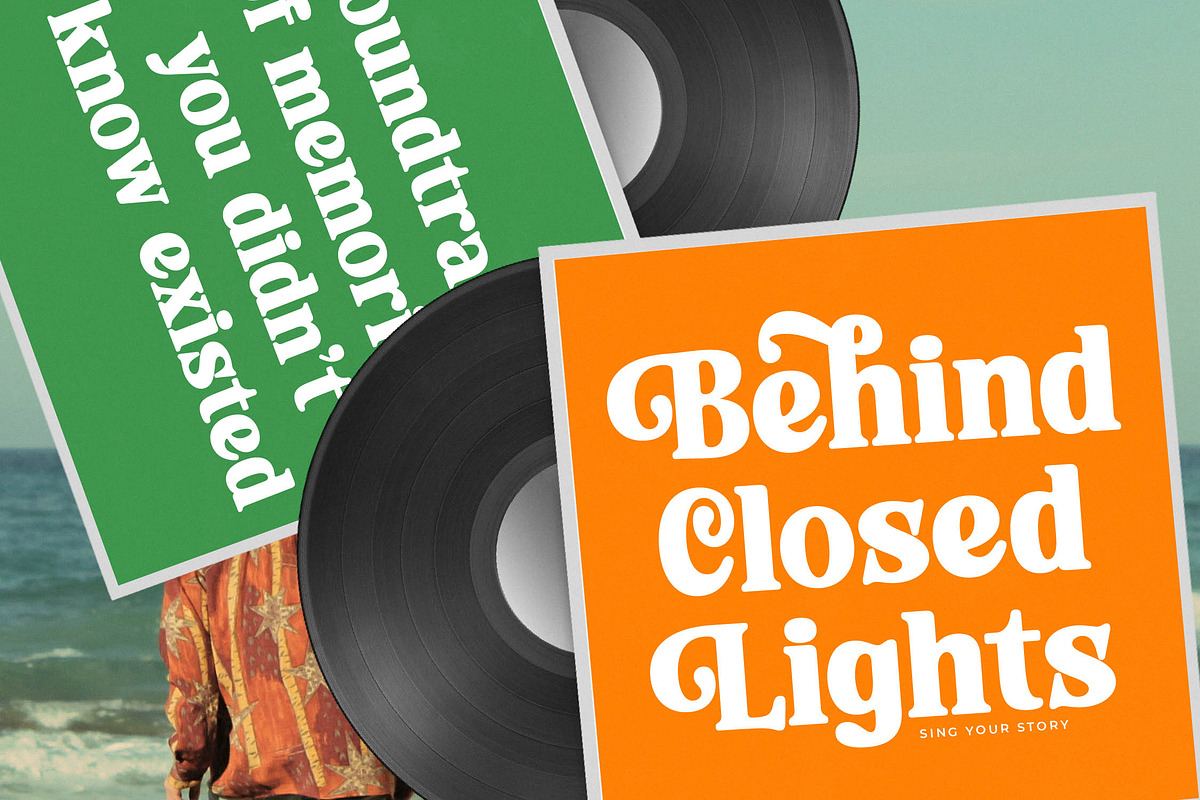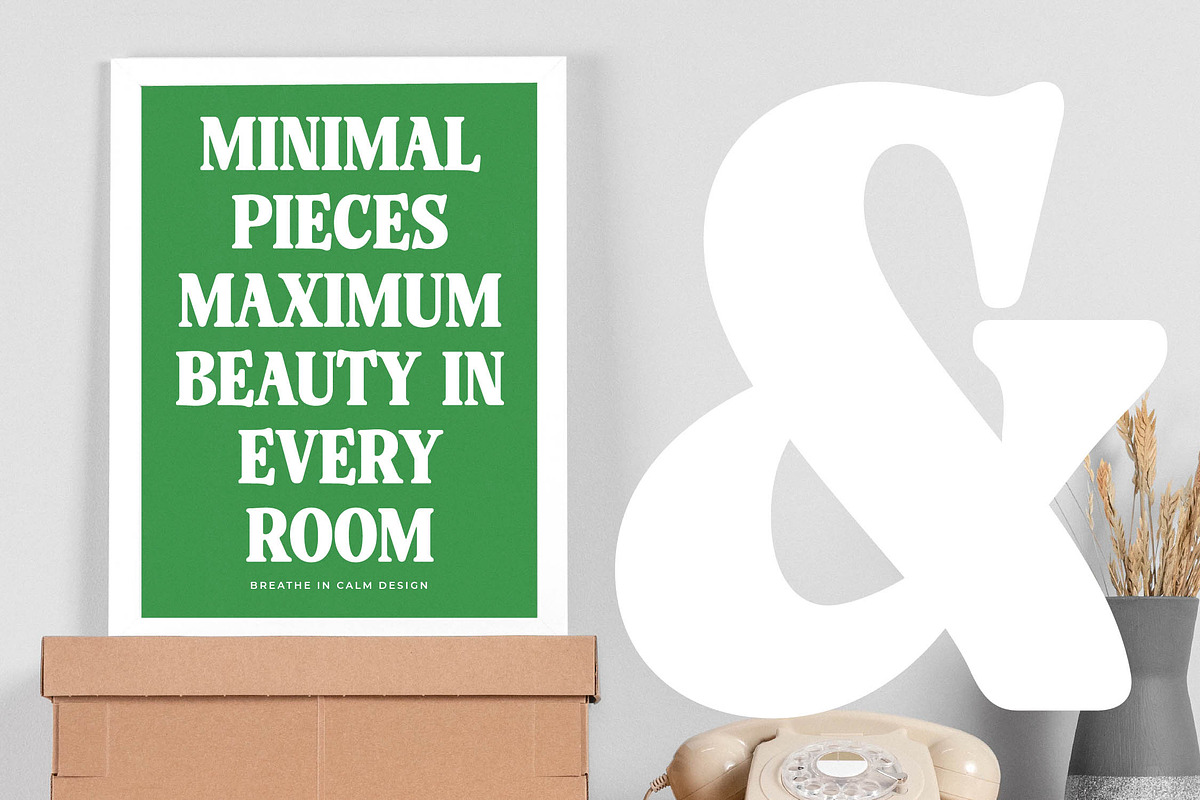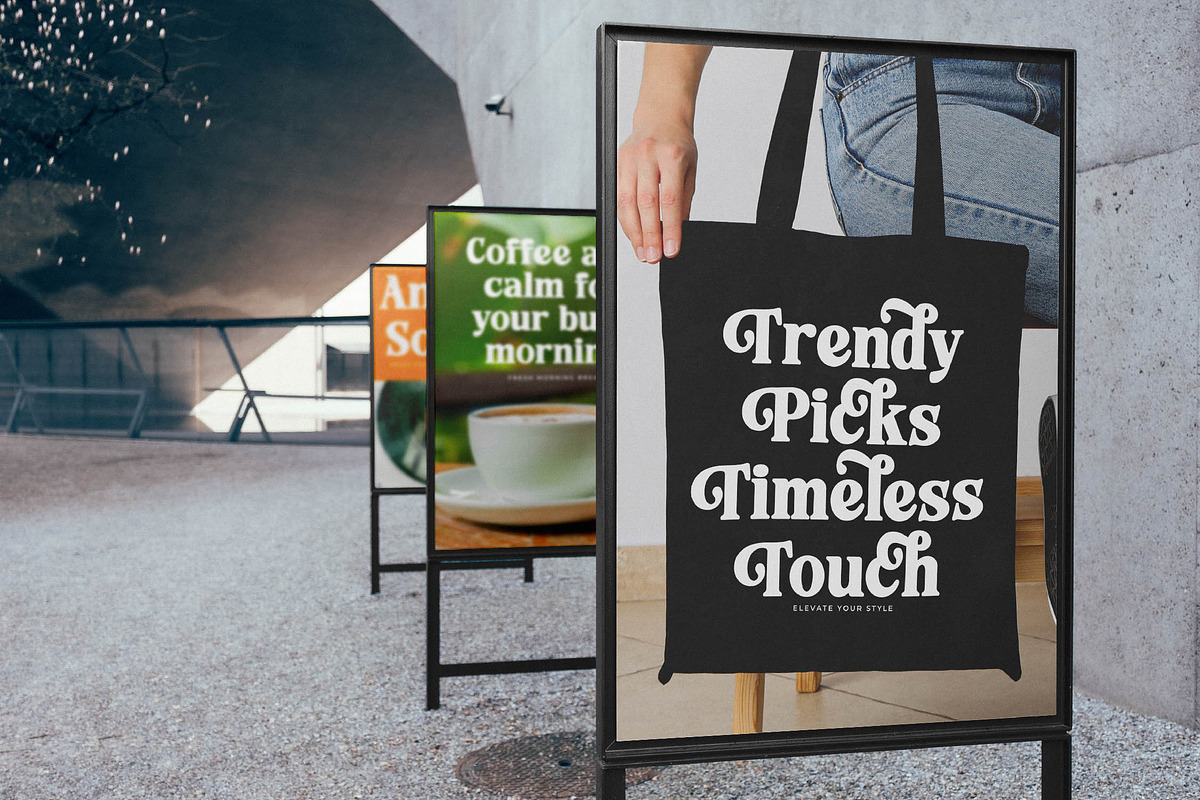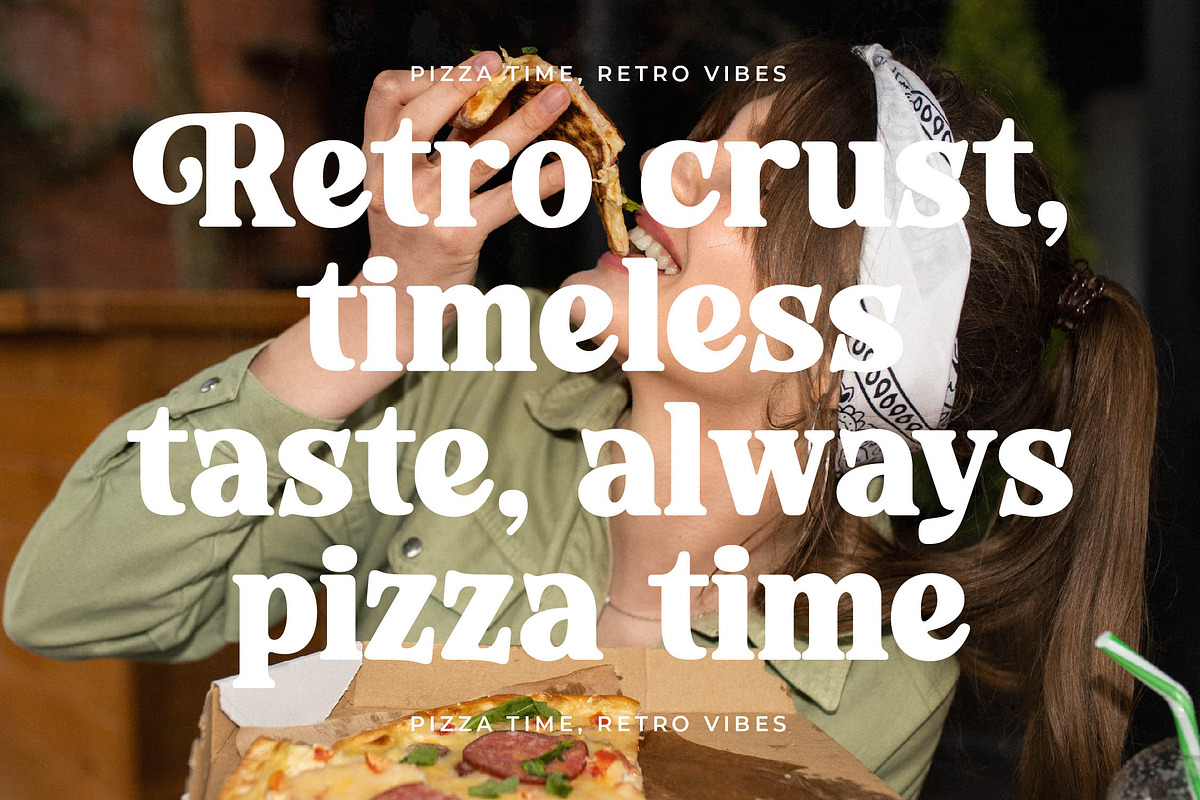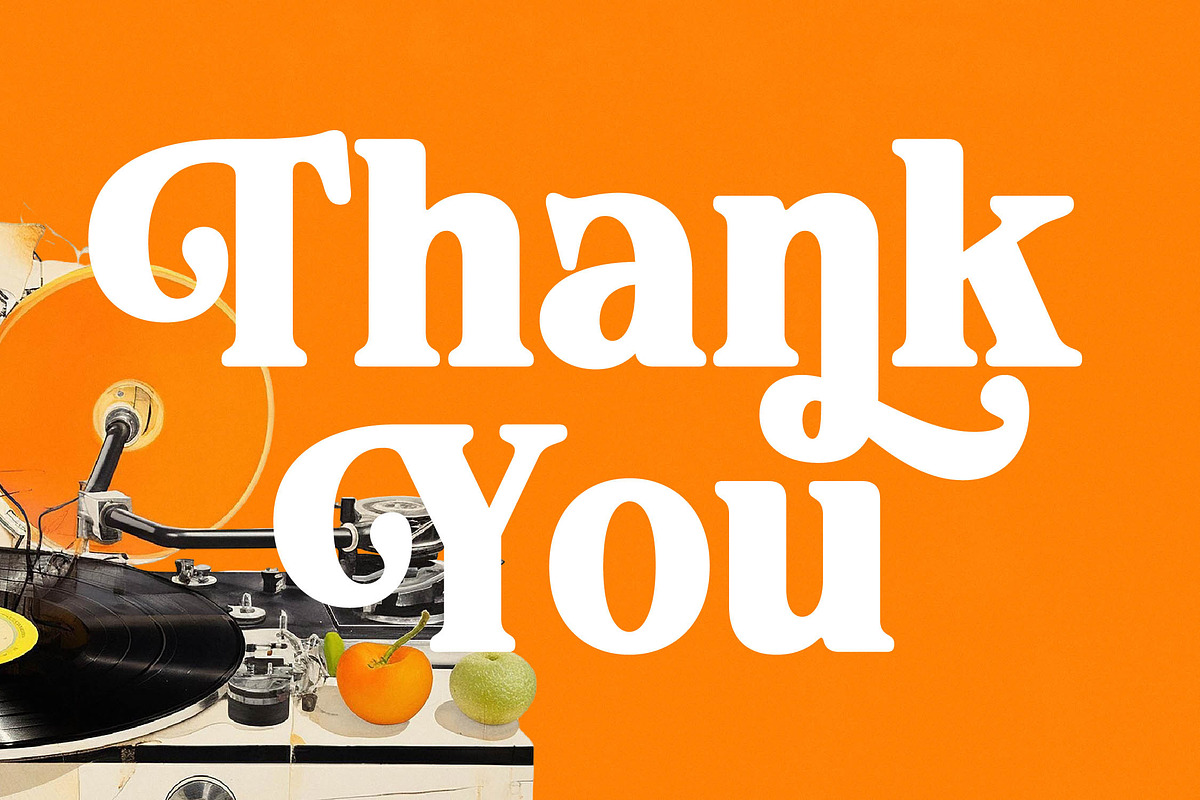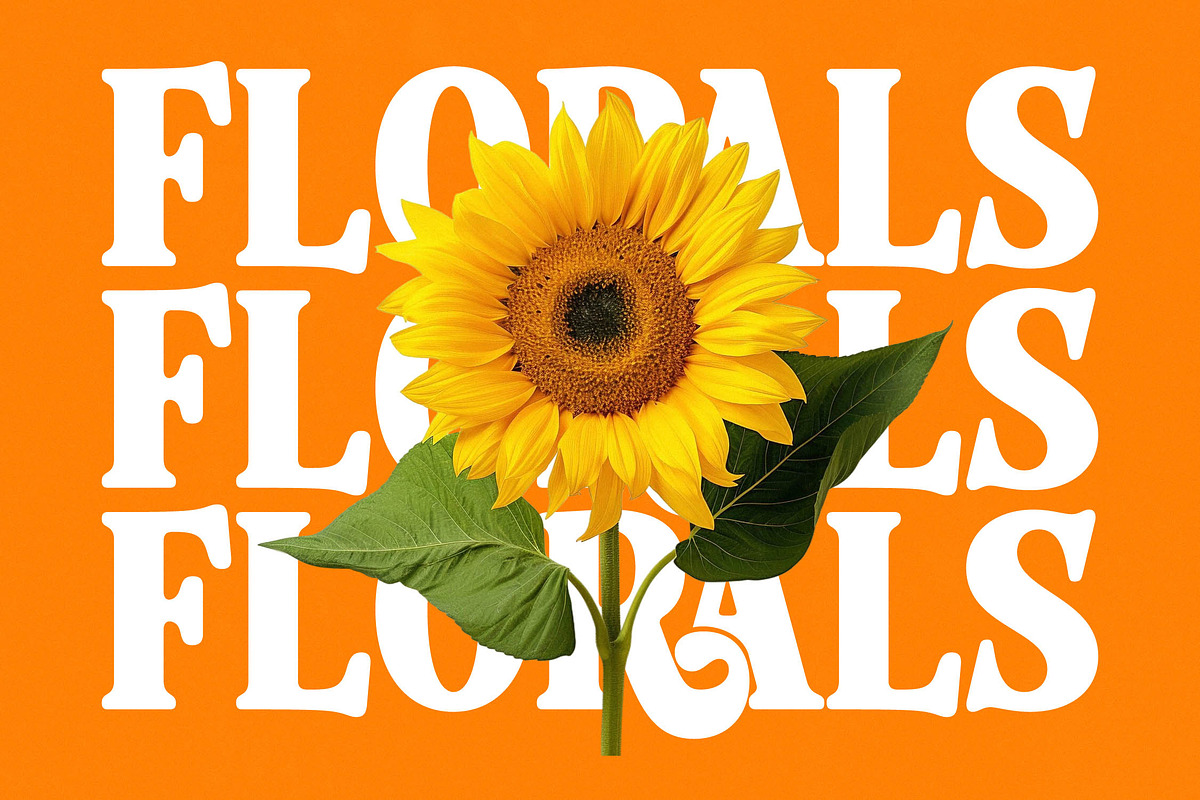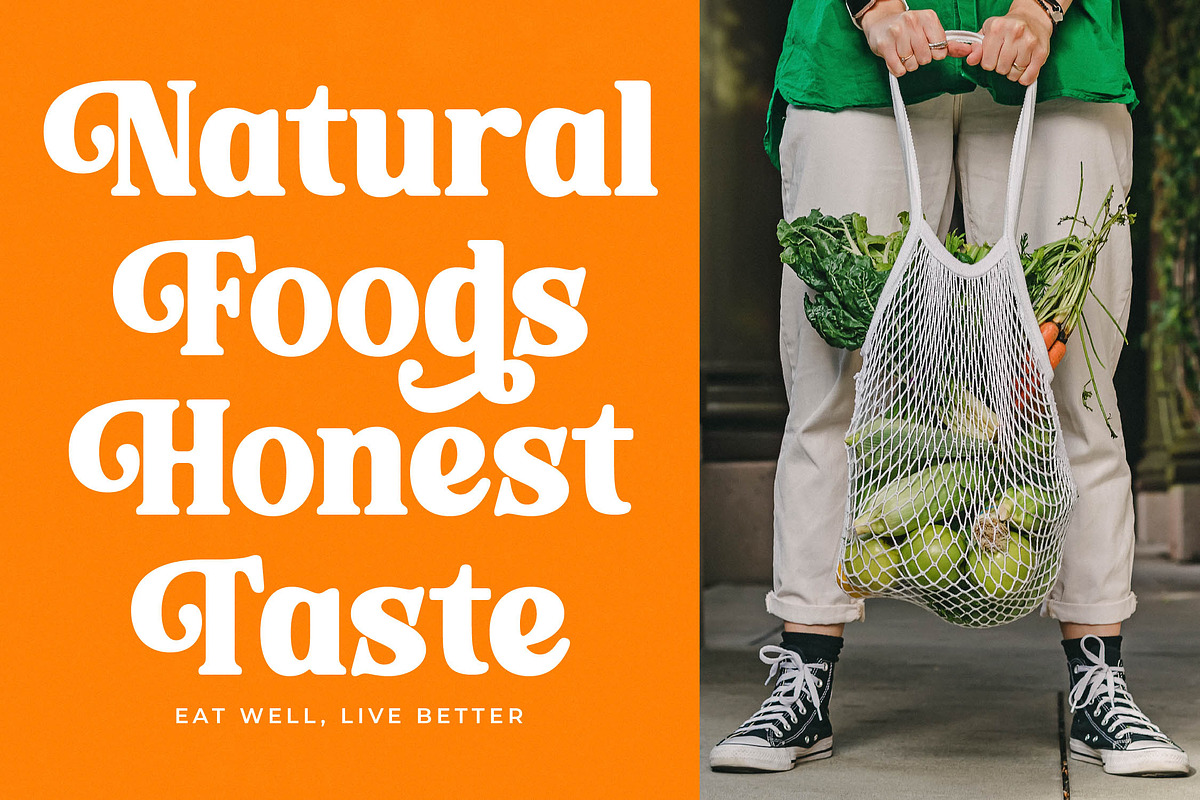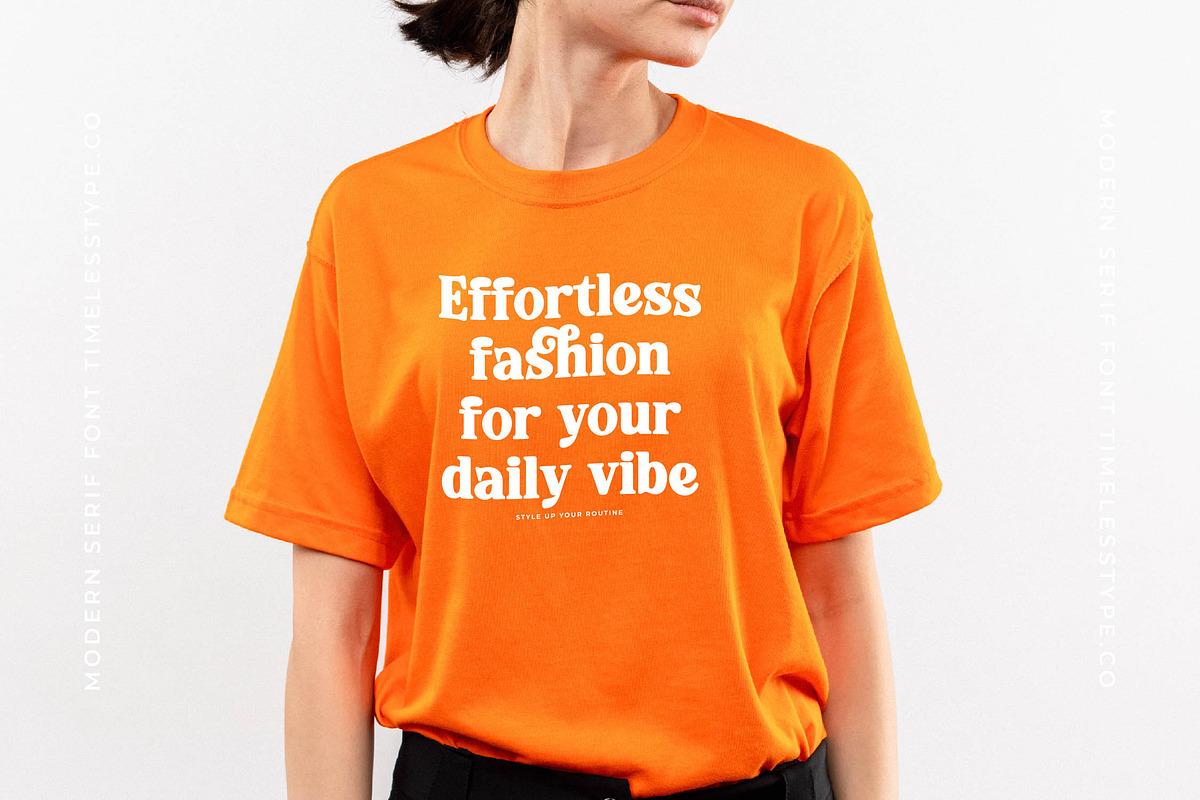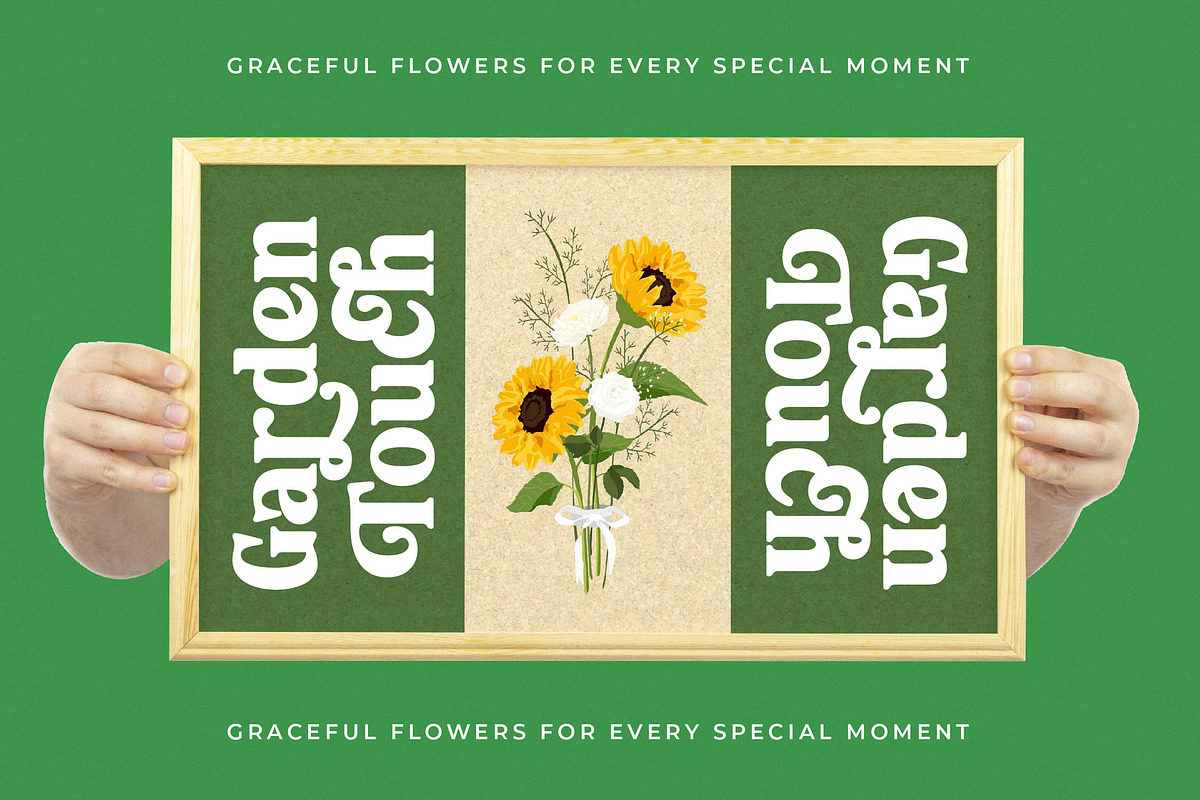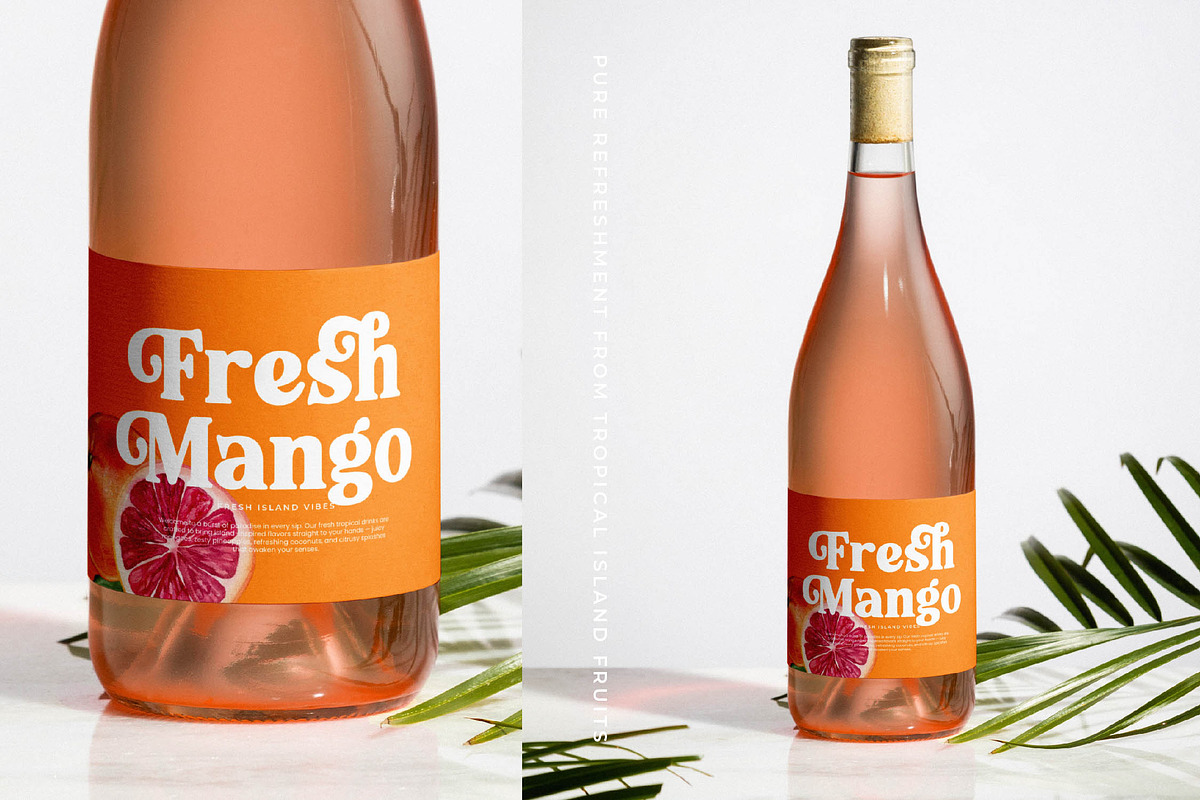
Rolling Basket Modern Retro Serif
Embrace the rhythmic flow of Rolling Basket, a font that dances between nostalgic charm and contemporary edge. It is a visual celebration designed to make every headline a masterpiece of typographic art.
Drawing inspiration from the groovy 1970s vinyl culture and high-end editorial layouts, this font captures the soulful essence of retro aesthetics. Its fluid curves and bold presence evoke the warmth of an analog era reimagined for today's digital landscape.
This modern serif display typeface commands attention with its luxury typography and high-contrast serif details. Every character is crafted for maximum branding impact, offering an editorial font experience that feels both familiar and entirely fresh.
Perfectly aligned with the current modern serif trend, Rolling Basket meets the demand for editorial display fonts that break away from the mundane. It provides character-driven typography that allows designers to tap into the new vintage movement sweeping across global design agencies.
From sophisticated logo design and bold branding suites to high-fashion editorial spreads, this font thrives in diverse environments. It is equally at home on artisan packaging, elegant wedding stationery, or within the fast-paced world of fashion marketing.
The package is loaded with creative potential, including a massive set of ligatures and unique alternates that allow for custom-tailored designs. It also features beautiful swashes and full multilingual support with international characters to ensure your message resonates globally.